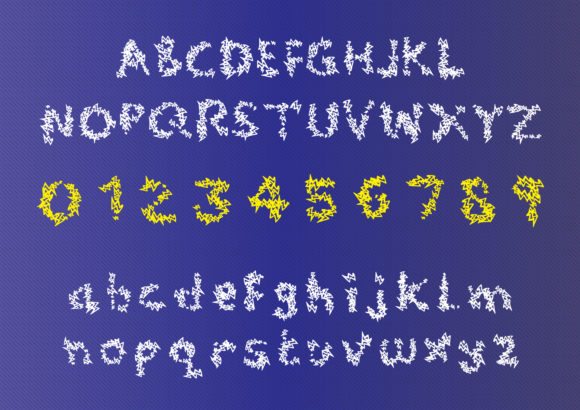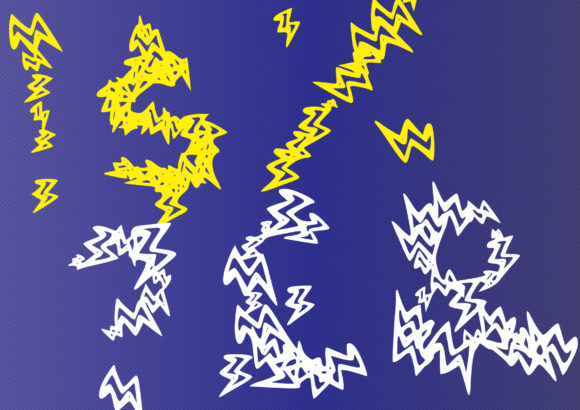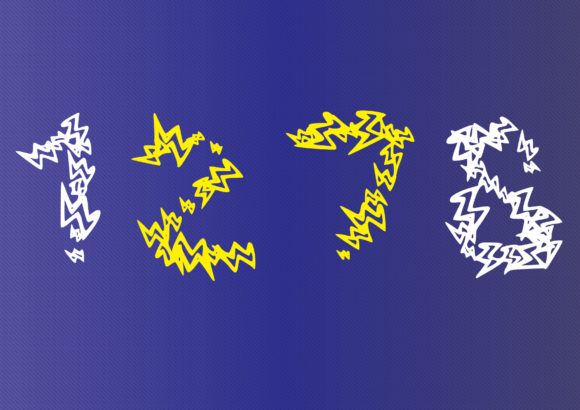
Introduction to Ligthing Font
Remember that moment when you’re working on a creative project and you’re struggling to find the perfect font to bring your vision to life? You scroll through design resources, searching for something unique and eye-catching, but everything seems to blend together. That’s when you stumble upon the Ligthing Font – a quirky and high-quality display font that’s sure to make your project stand out.
The Ligthing Font is more than just a font; it’s a statement piece that can elevate your design from ordinary to extraordinary. With its transparent background and free download option, you can experiment with different backgrounds and layouts without any limitations. Whether you’re a seasoned designer or just starting out, this font is a valuable addition to your design toolkit, offering endless possibilities for creative expression.
Honest Review: Ligthing Font
As a designer, I’m always on the lookout for high-quality design resources to elevate my creative projects. Ligthing Font caught my attention, and I decided to give it a try. Here’s my honest review.
- ✨ Beautifully designed characters with a modern feel
- ✨ Great for use with transparent backgrounds, adding a touch of elegance to any design
- ✨ Offers a wide range of weights and styles, making it versatile for various design applications
- ⚠️ Limited font sizes and variations, which may not be ideal for complex design projects
Overall, Ligthing Font is a solid addition to any designer’s toolkit. While it has its limitations, its high quality and modern design make it a great choice for creative projects. If you’re looking for a free, high-quality font to spice up your designs, Ligthing Font is definitely worth checking out.
For the best results, use Ligthing Font in conjunction with a transparent background to maintain its high quality. You can also experiment with different font sizes and styles to find the perfect look for your creative project.
Ligthing Font is perfect for a variety of creative projects, including logos, business cards, and social media graphics. Its high-quality design and transparent background make it ideal for use in a range of design software, including Canva, Adobe Photoshop/Illustrator, and PowerPoint/Word.